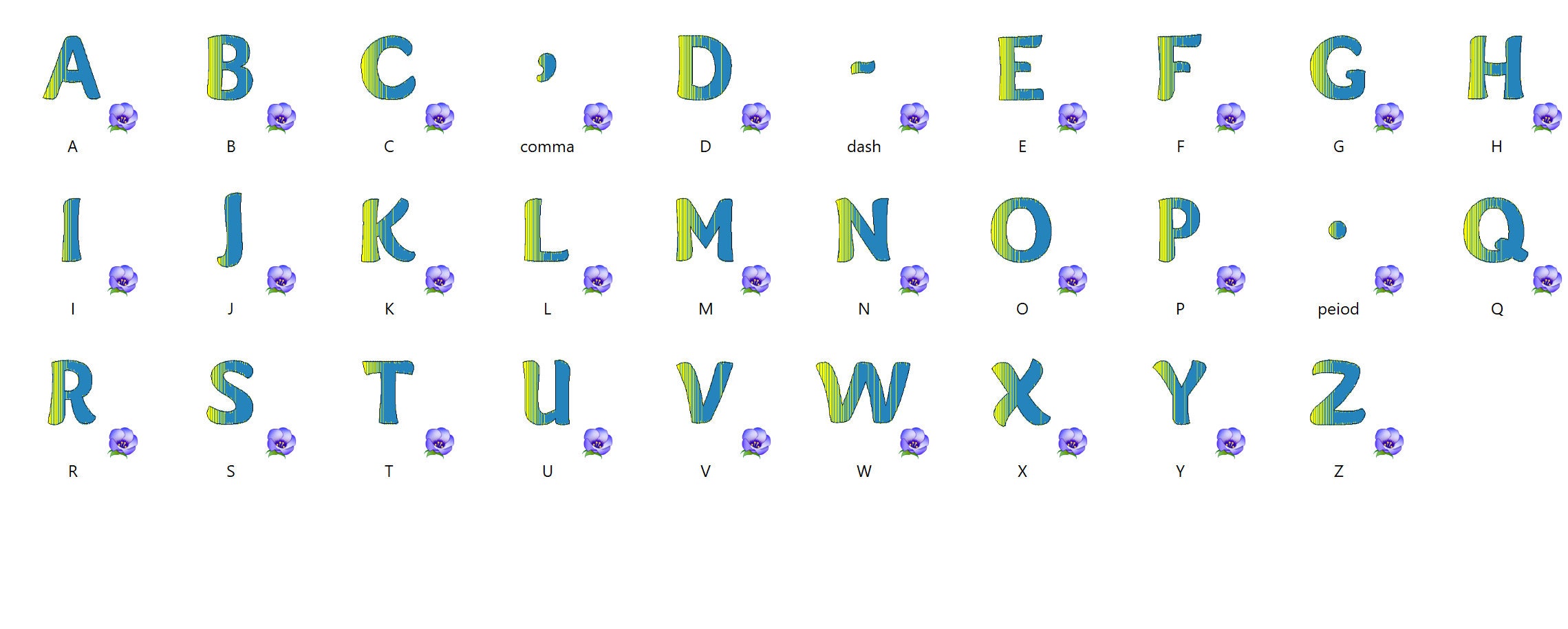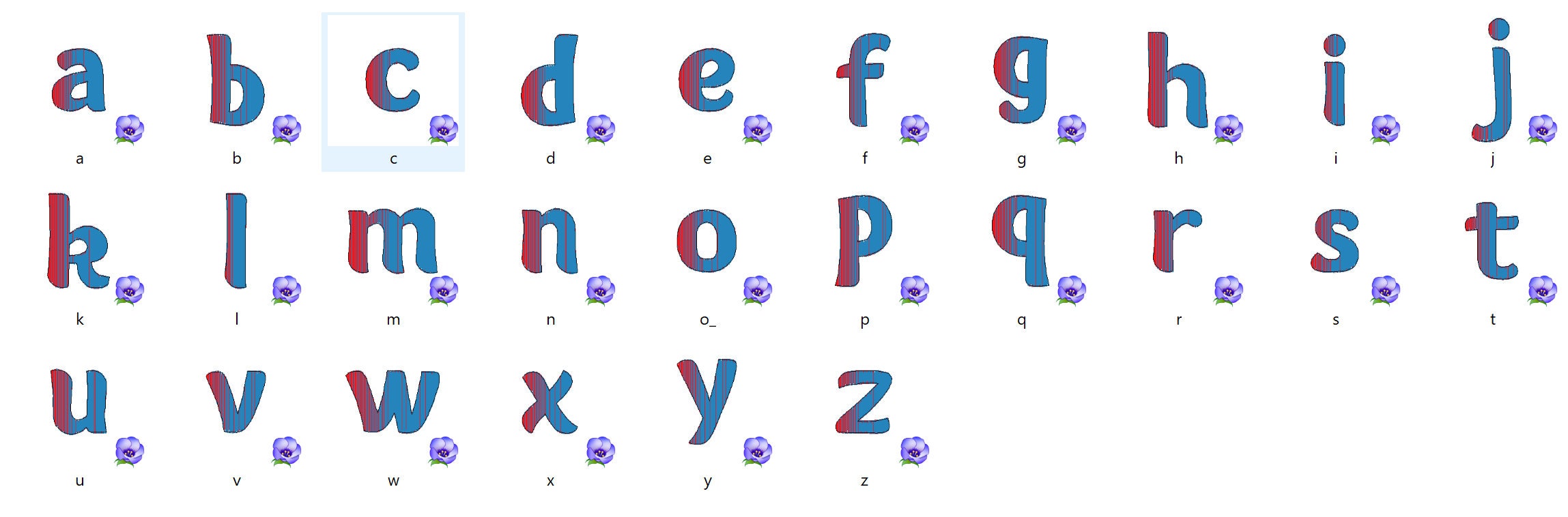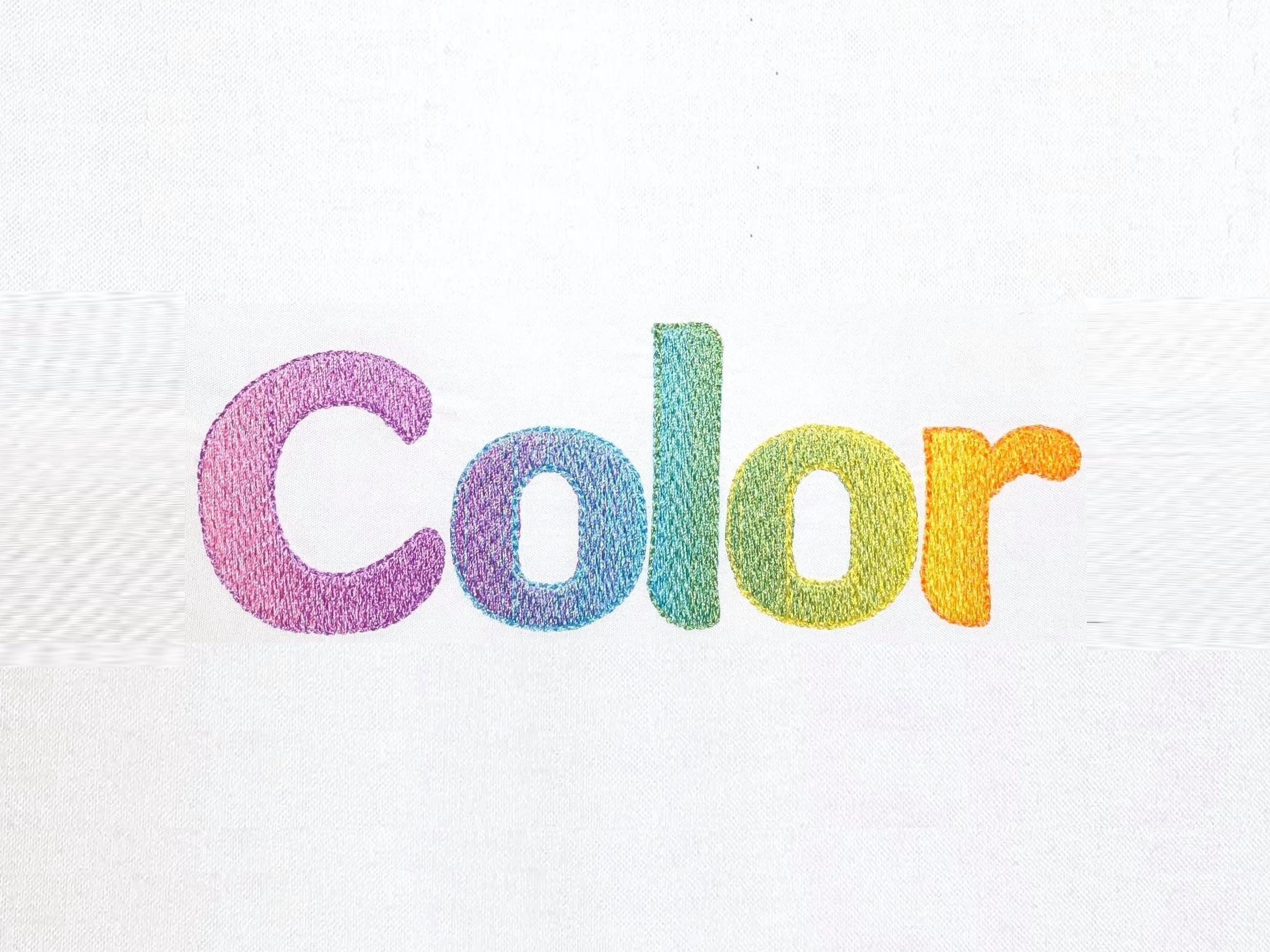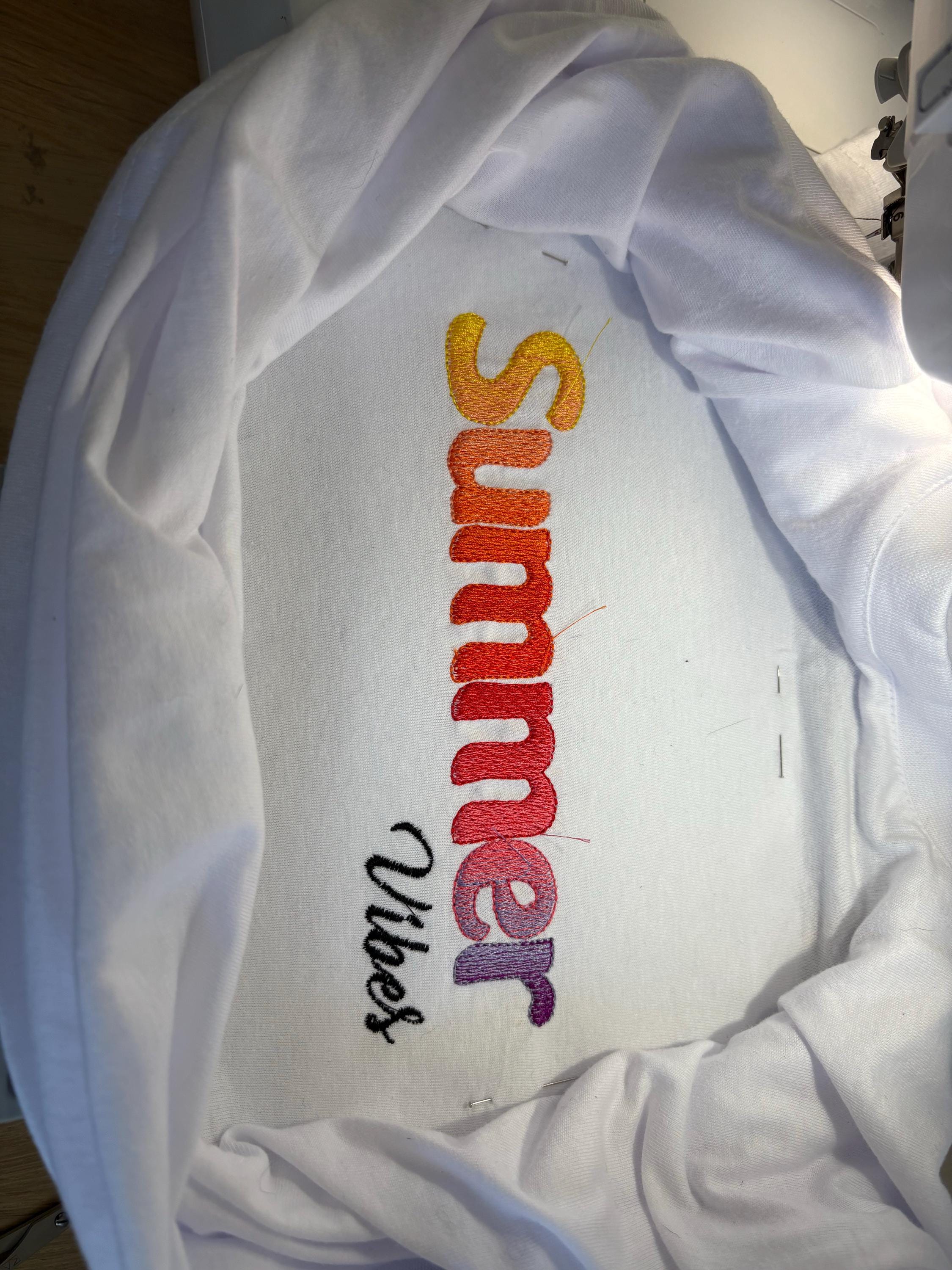
Rainbow Iridescent 2 Color FONT alphabet Embroidery designs in assorted sizes, awesome gradient embroidery font, monogram, NO special thread
No special thread is required!
It looks incredible! For this font, regular threads are used (not multi-colored).
The letters are stitched using regular embroidery threads, just used two solid color threads to make a nice iridescent effect!
No special thread is required. The pattern creates this amazing effect all by itself. Iridescent comes thanks to the design, each letter has 2 colors. While stitching on one side of the letter it stitches more with one color and on another side stitches with the next color.
To get the rainbow effect you need to continue the next letter with the color that finished the previous letter.